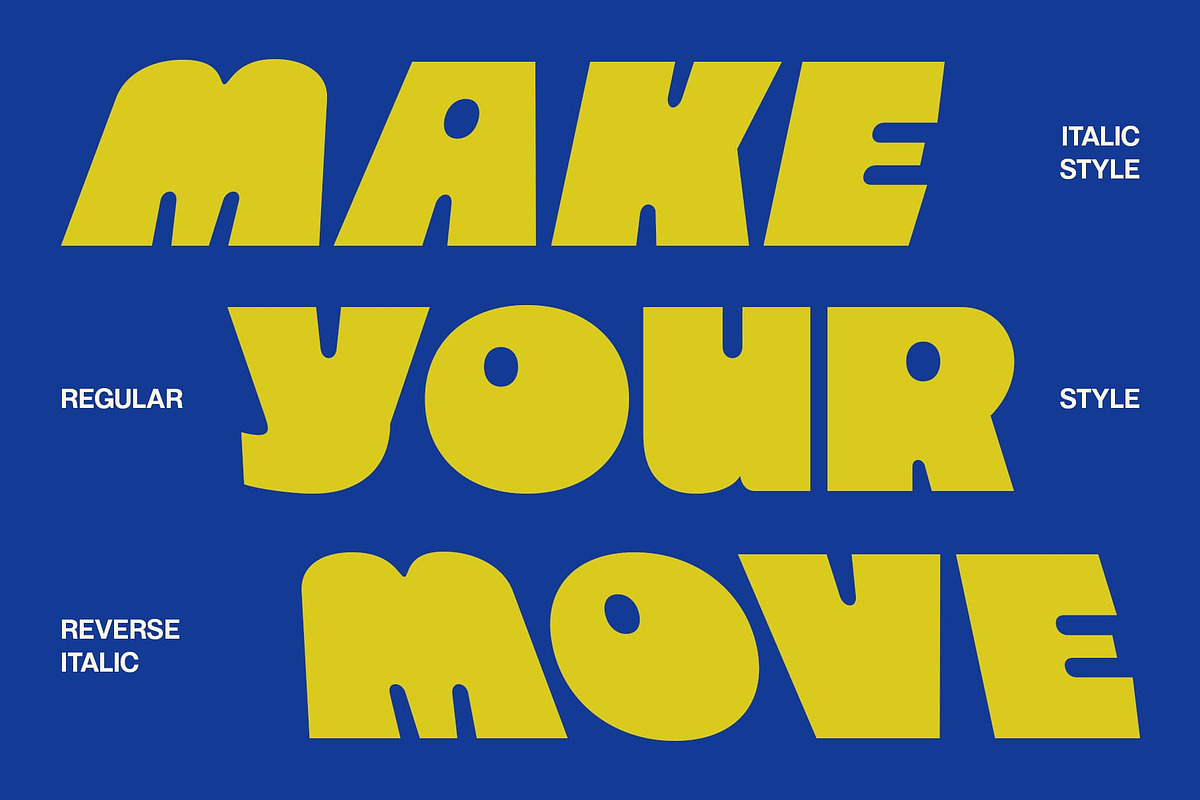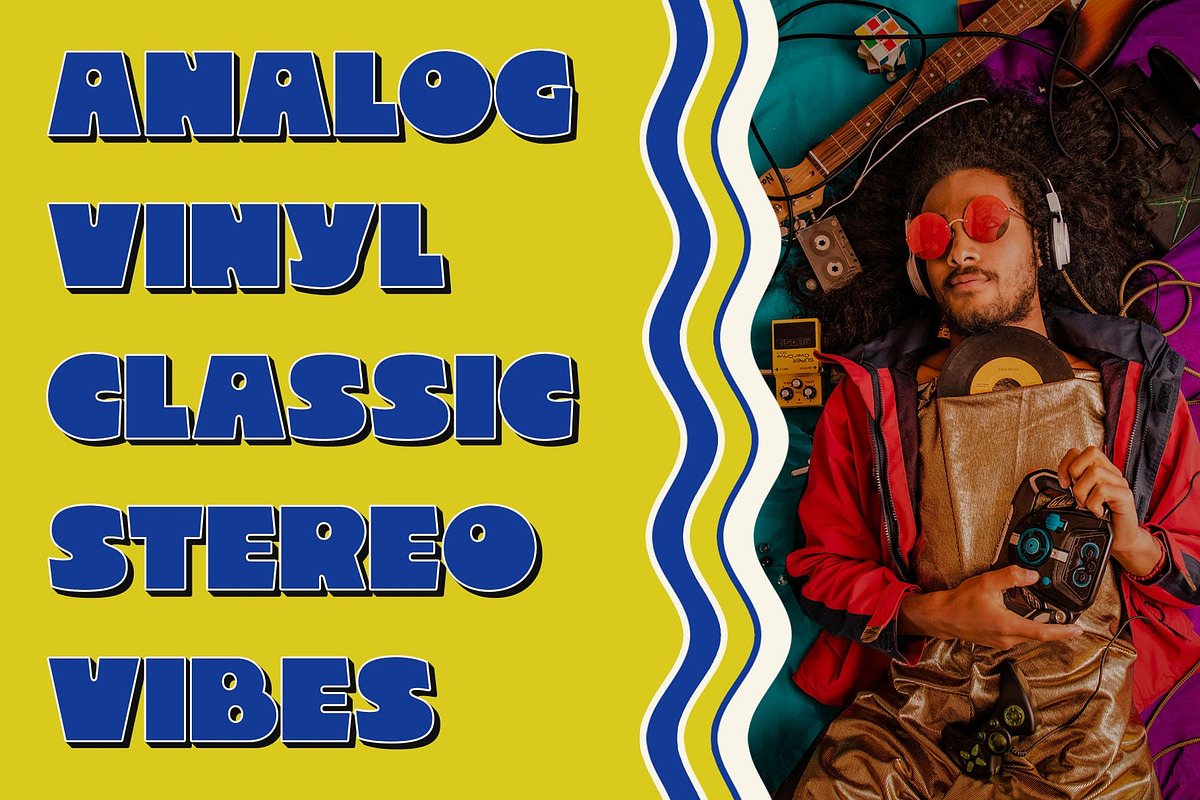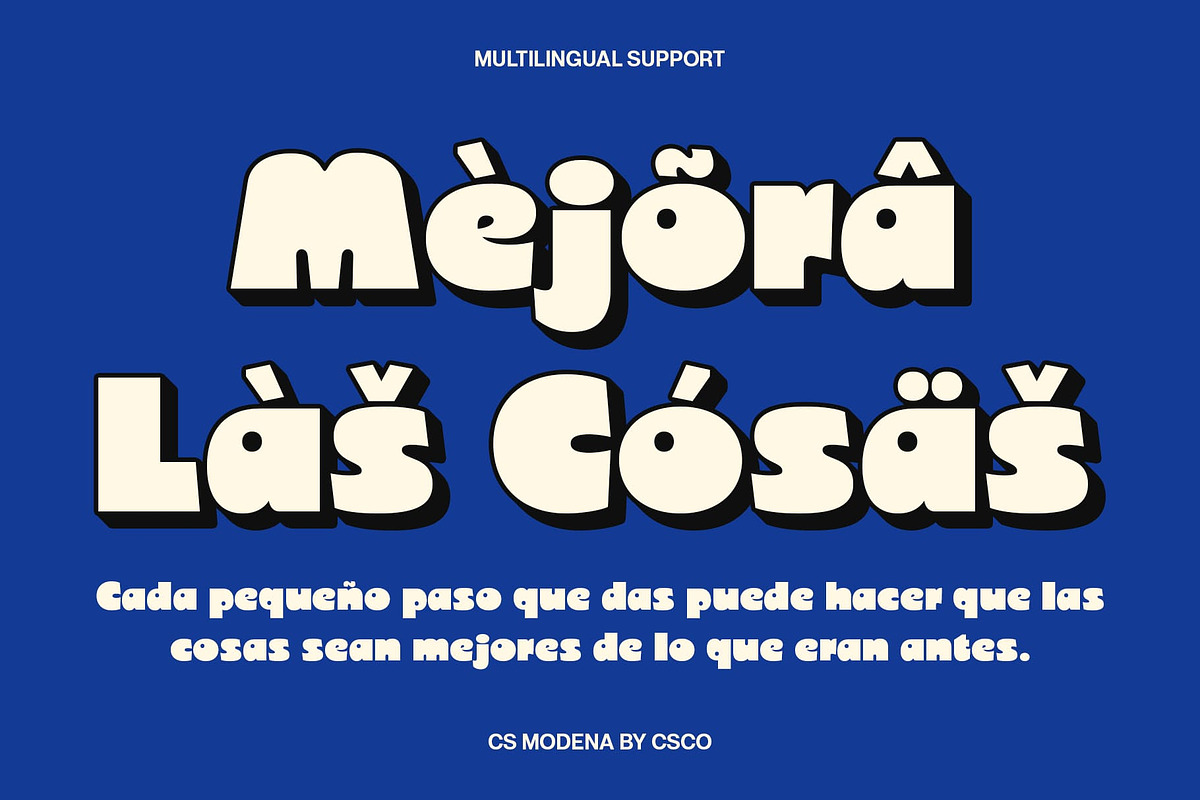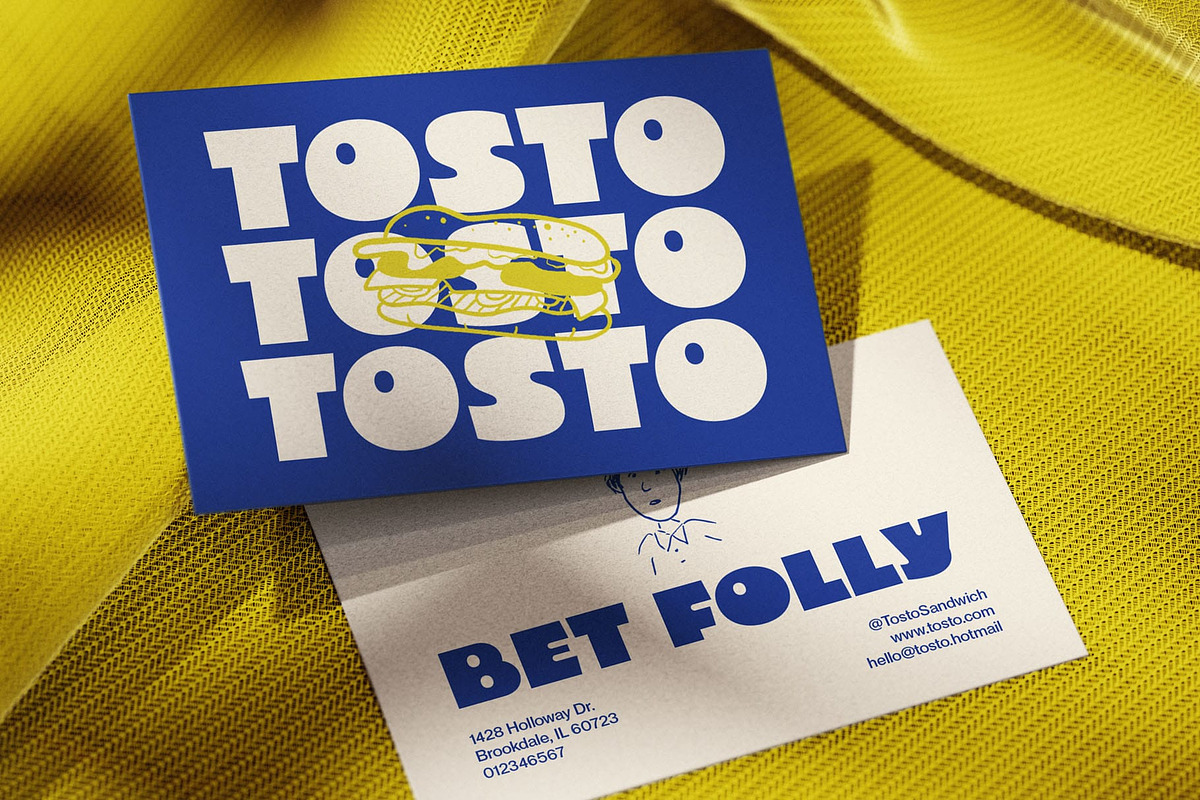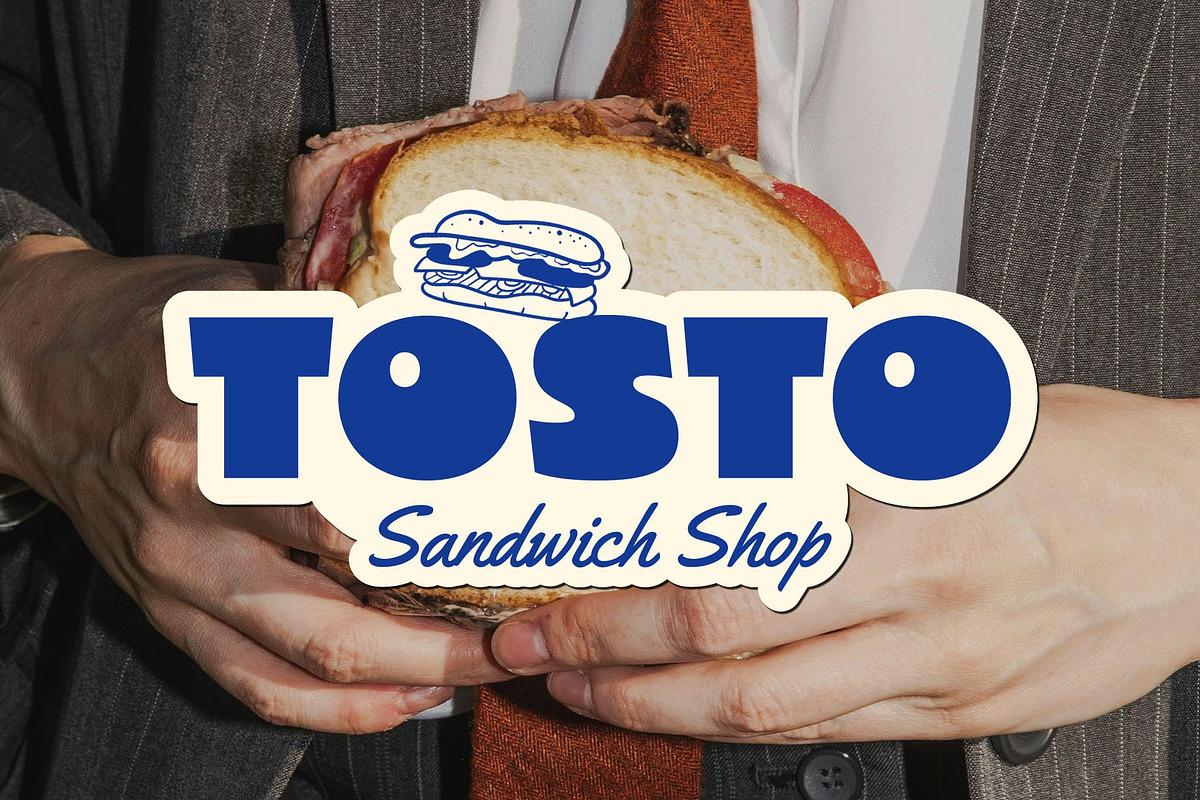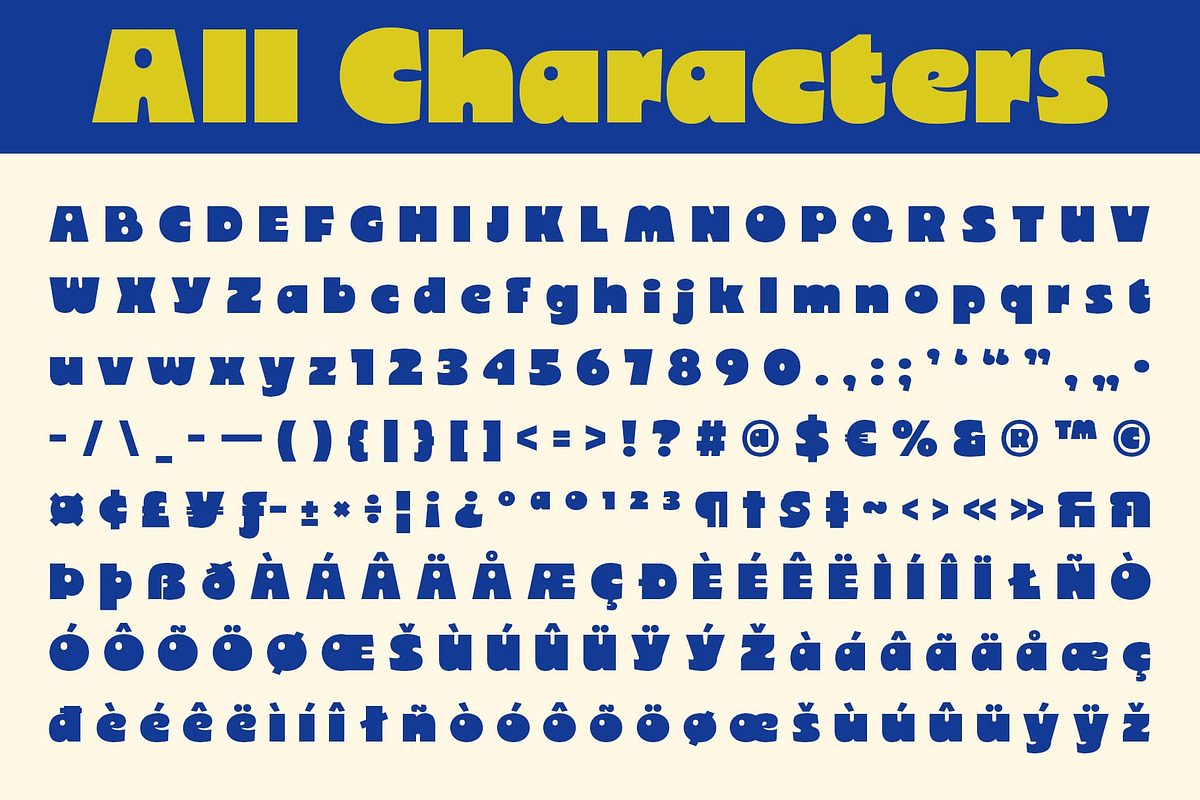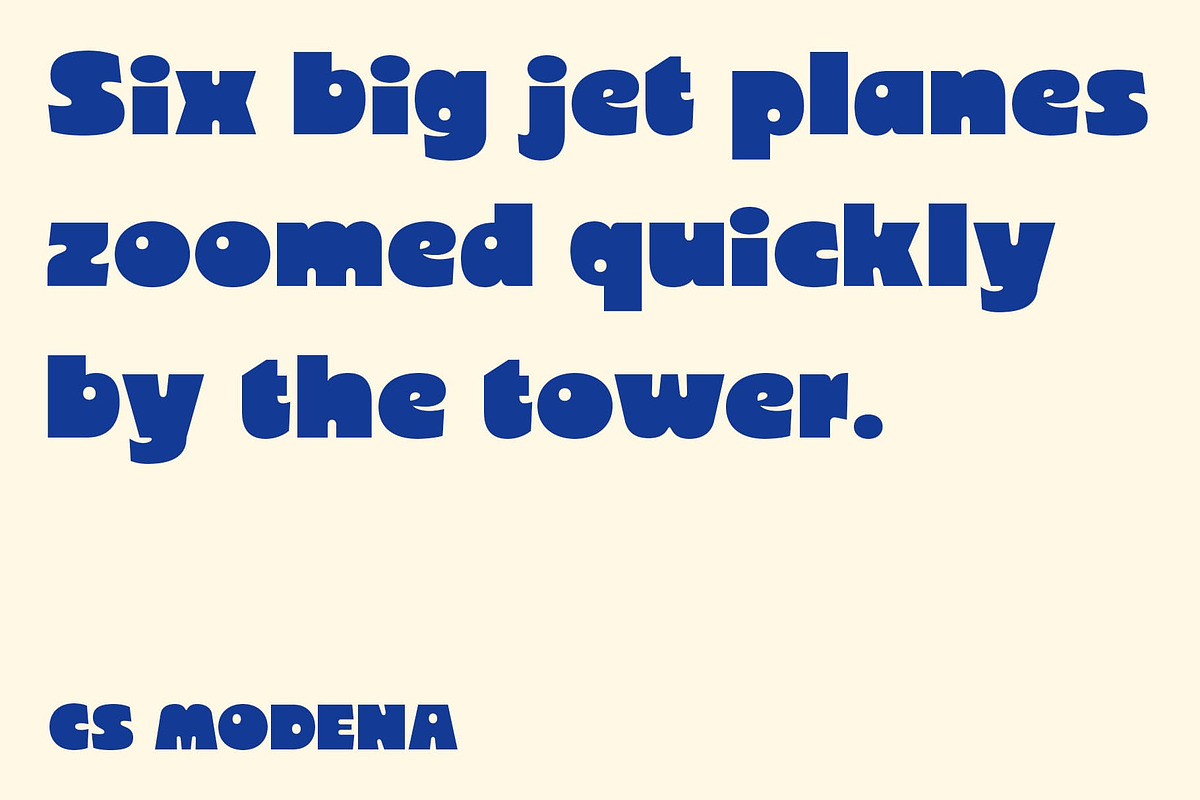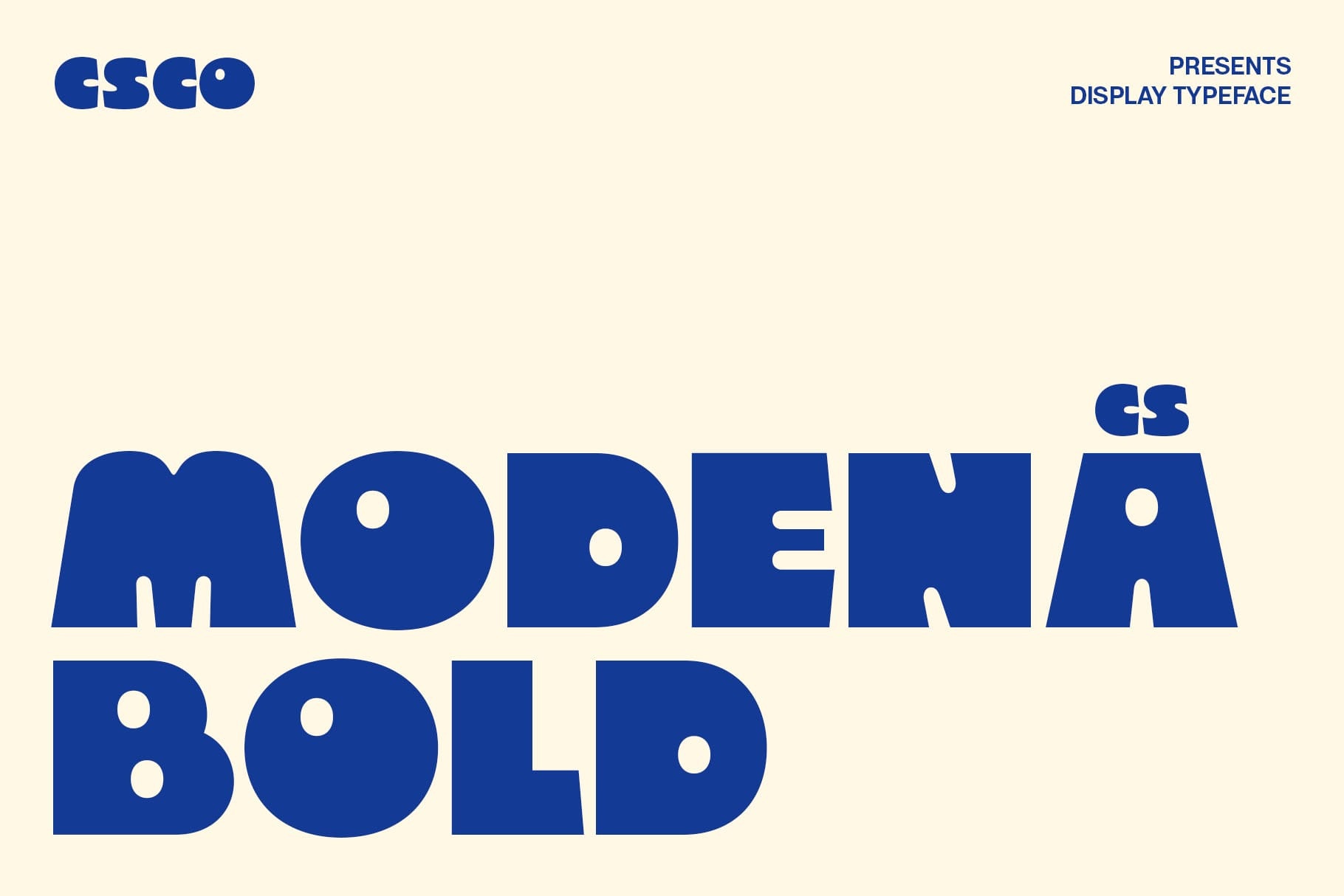
CS Modena – Bold Font
CS Modena – Bold Font: Boldness with Funky Charm
Classic Sans-Serif Display with Bold Energy CS Modena – Bold Font is a classic sans-serif display typeface featuring strong, clean shapes with a distinctive sense of confidence. Its bold form makes every letter stand out with clarity and power, while still maintaining a stylishly modern edge.
Expressive and Unique Character Beyond its clean lines, CS Modena adds a touch of funky energy that makes it more than just a standard bold sans serif. This unique character gives your text an eye-catching presence, perfect for projects that want to radiate originality and charm. Its ability to stay clean and bold while still carrying a unique flair makes it suitable for both modern corporate uses and artistic creative projects.
Versatile for Bold Statements From impactful headlines to striking branding, CS Modena is crafted for designs that require a strong and expressive look. Its balance between boldness and subtle personality makes it suitable for posters, logos, packaging, social media graphics, and more.
Perfect Blend of Strength and Style CS Modena – Bold Font bridges the gap between strong geometric structure and stylish individuality. Whether applied in minimalist compositions or vibrant, energetic campaigns, it ensures that your message stands out with authority, personality, and unforgettable presence.